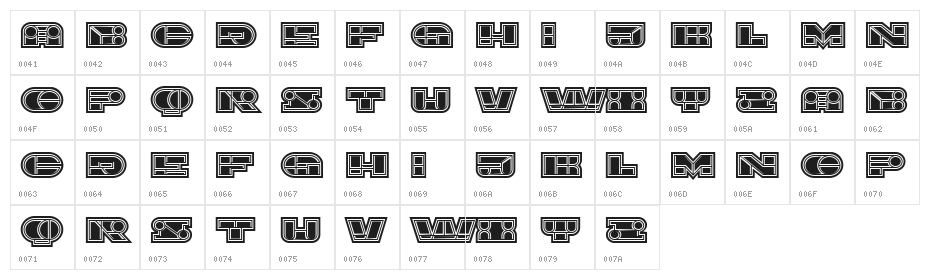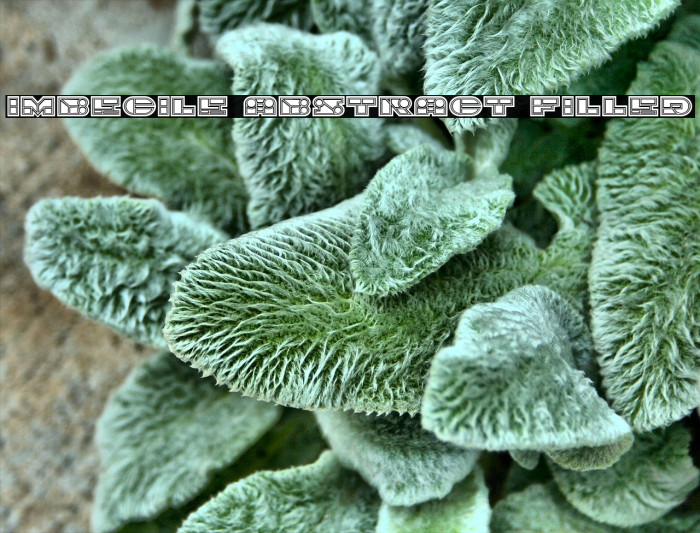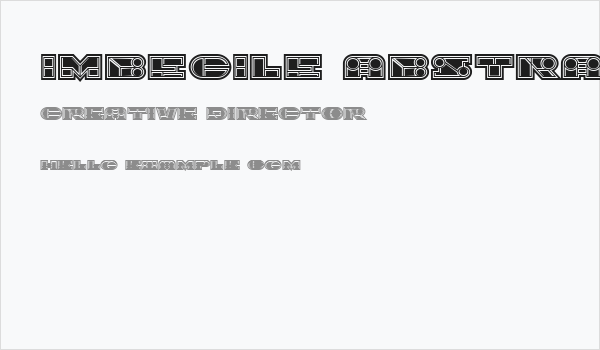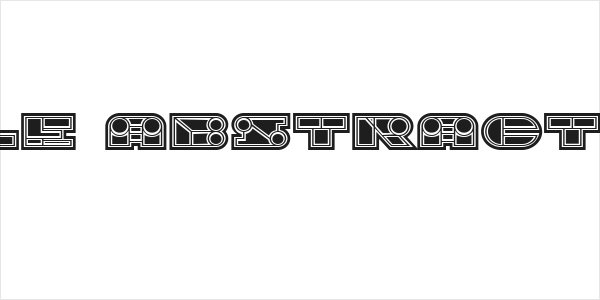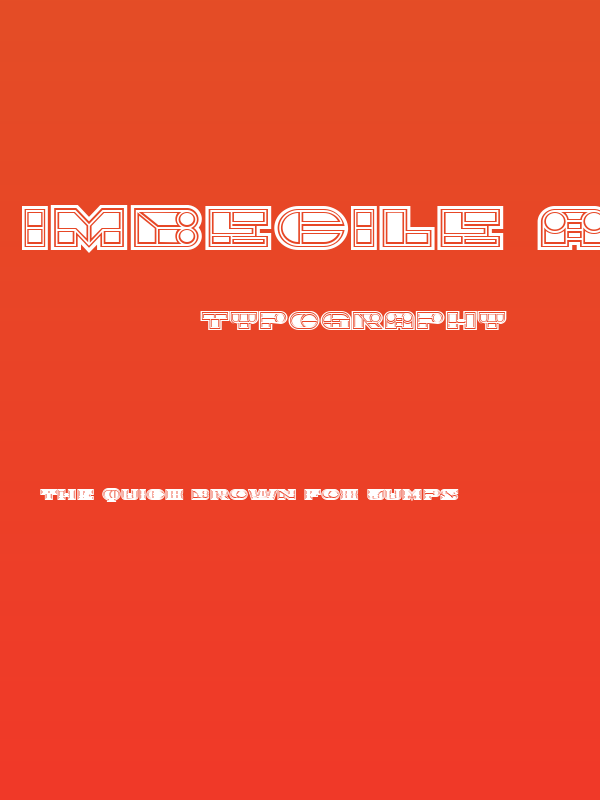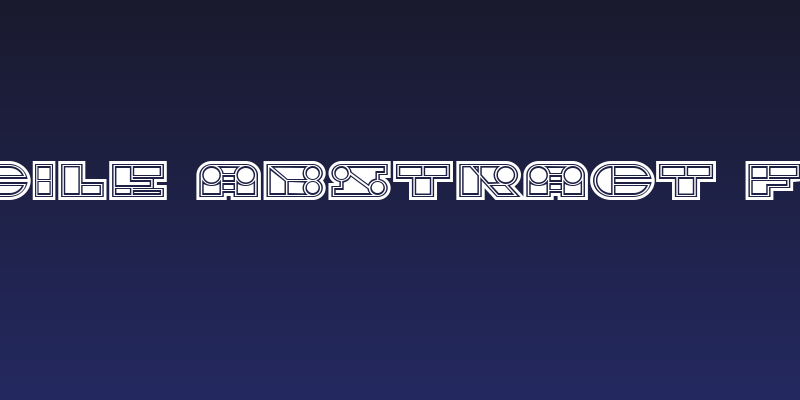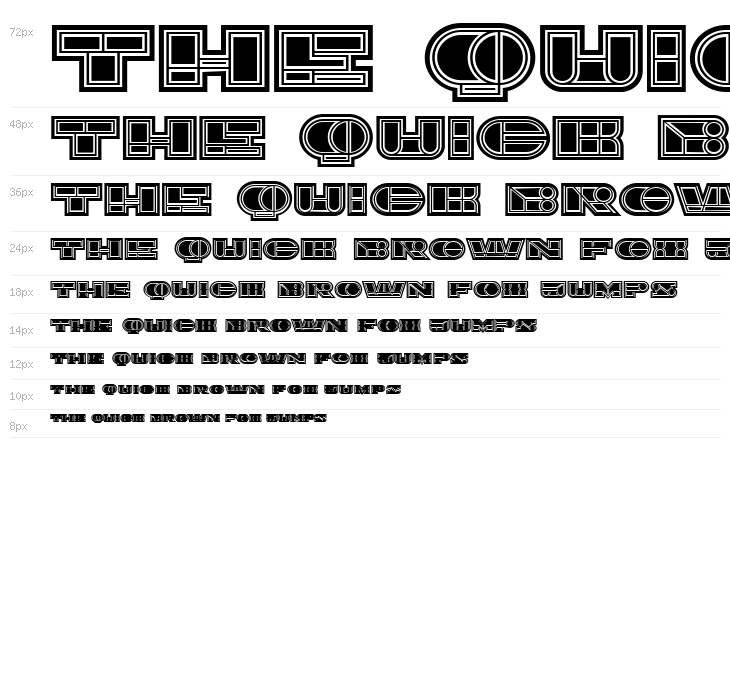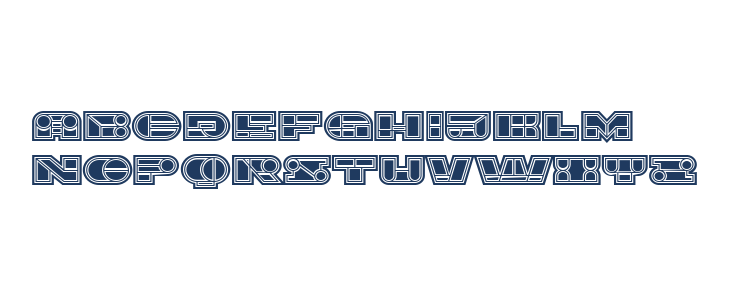
Imbecile Abstract Filled Font
Imbecile Abstract Filled Description
This font features a bold, geometric design with a filled abstract pattern within each character. The letters are constructed with a series of lines and shapes, creating a layered and intricate appearance. The uppercase and lowercase letters maintain a consistent style, emphasizing symmetry and balance. The numbers and special characters follow the same design principles, ensuring uniformity across the entire character set. The font's unique style makes it stand out, with its complex patterns and bold outlines capturing attention.
| Use Case | Logos, Posters, Digital Art |
| Proposed Projects | Ideal for modern branding projects, eye-catching posters, digital artwork, and unique logo designs. |